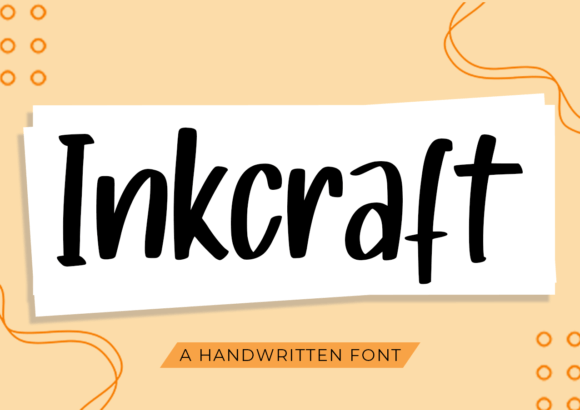
Unleash your creativity with Inkcraft Font, a delightful script font that captures the essence of handwritten charm. Crafted meticulously by fontkong, Inkcraft features a captivating blend of whimsy and elegance, adding a touch of individuality to your designs.
Journey into a world of artistic expression with Inkcraft, where each letter dances across the page with a unique flair. Its upper and lowercase characters provide endless possibilities for creating eye-catching headlines, logos, branding, and social media graphics that resonate with your audience.
Step outside the ordinary and embrace the extraordinary with Inkcraft. Its versatility knows no bounds, seamlessly adapting to a myriad of design styles. Whether you're a seasoned designer or just starting your creative journey, Inkcraft empowers you to craft designs that leave a lasting impression.
With Inkcraft, the possibilities are limited only by your imagination. Dive into a sea of creative opportunities, transforming your designs into masterpieces that captivate and inspire. Its user-friendly PUA encoding ensures effortless access to an array of charming glyphs and swashes, adding depth and personality to your creations.
Elevate your designs to new heights with Inkcraft Font. Its captivating script style adds a touch of magic to your projects, leaving a lasting impression on your audience. Embrace the power of expression and let your creativity soar. Dive into the world of Inkcraft today and unlock a world of endless possibilities.